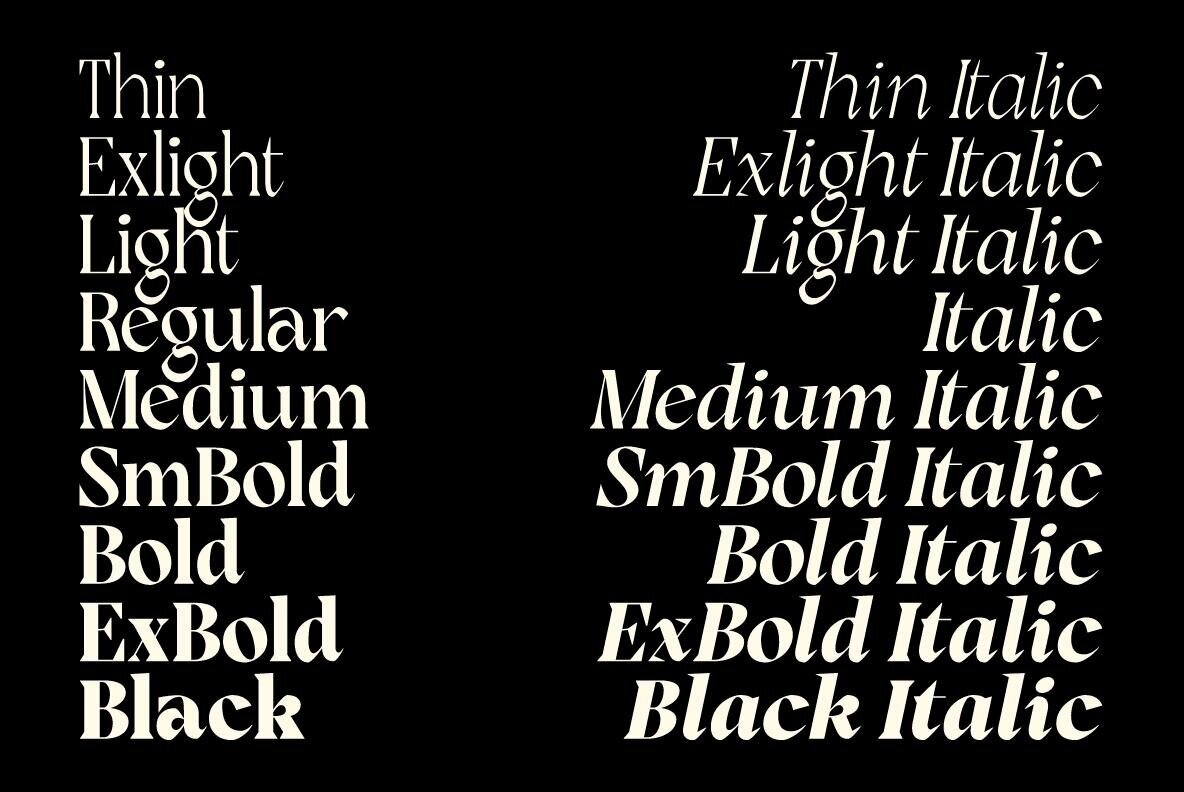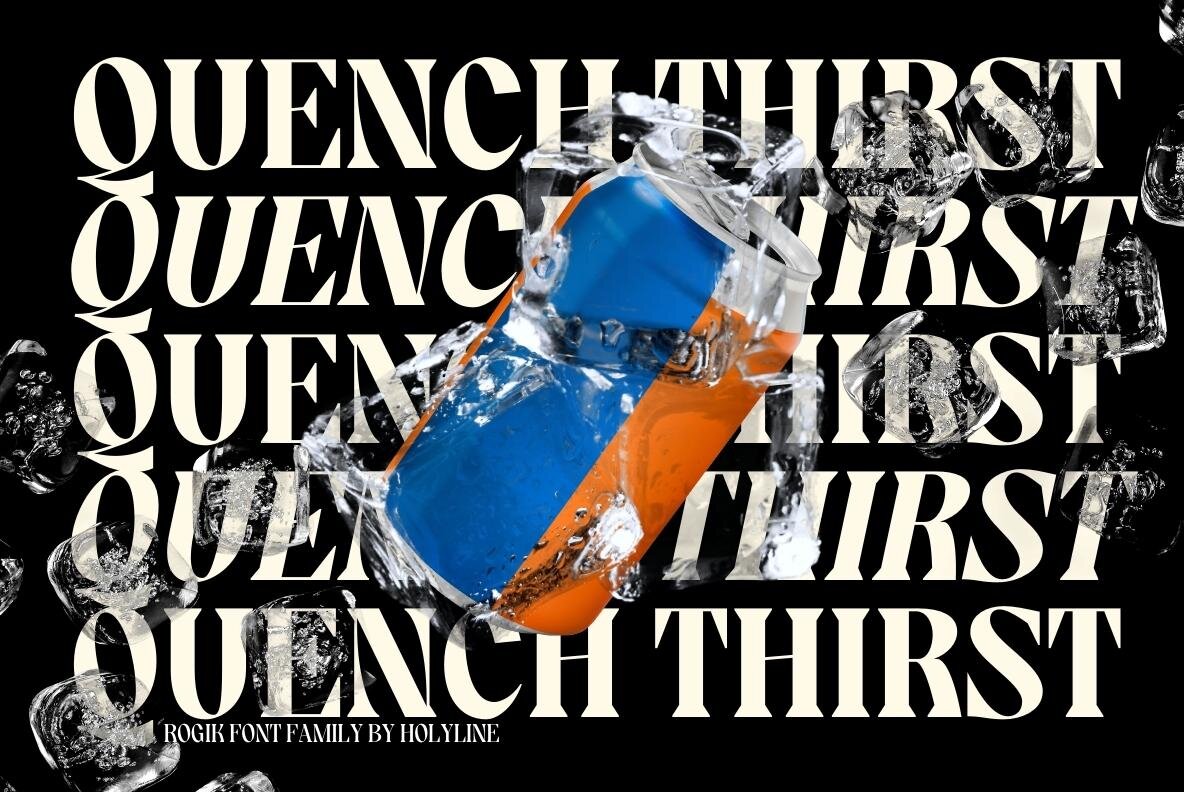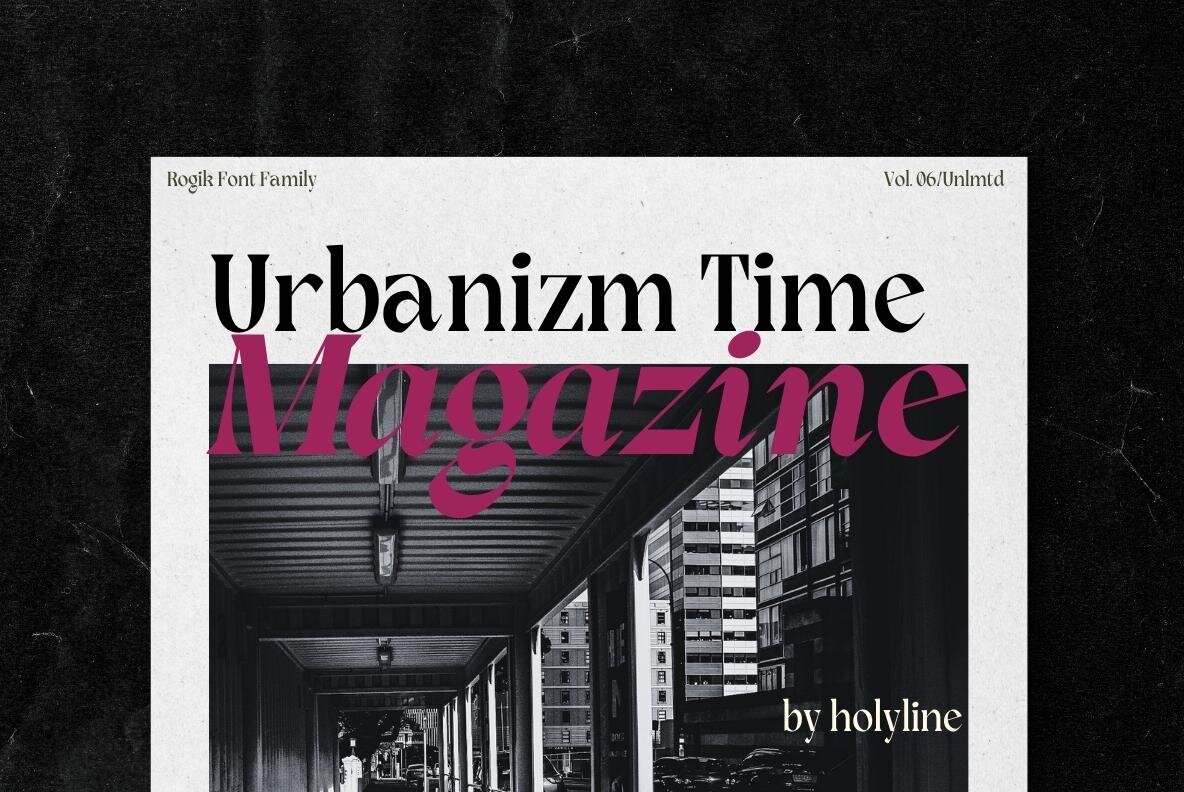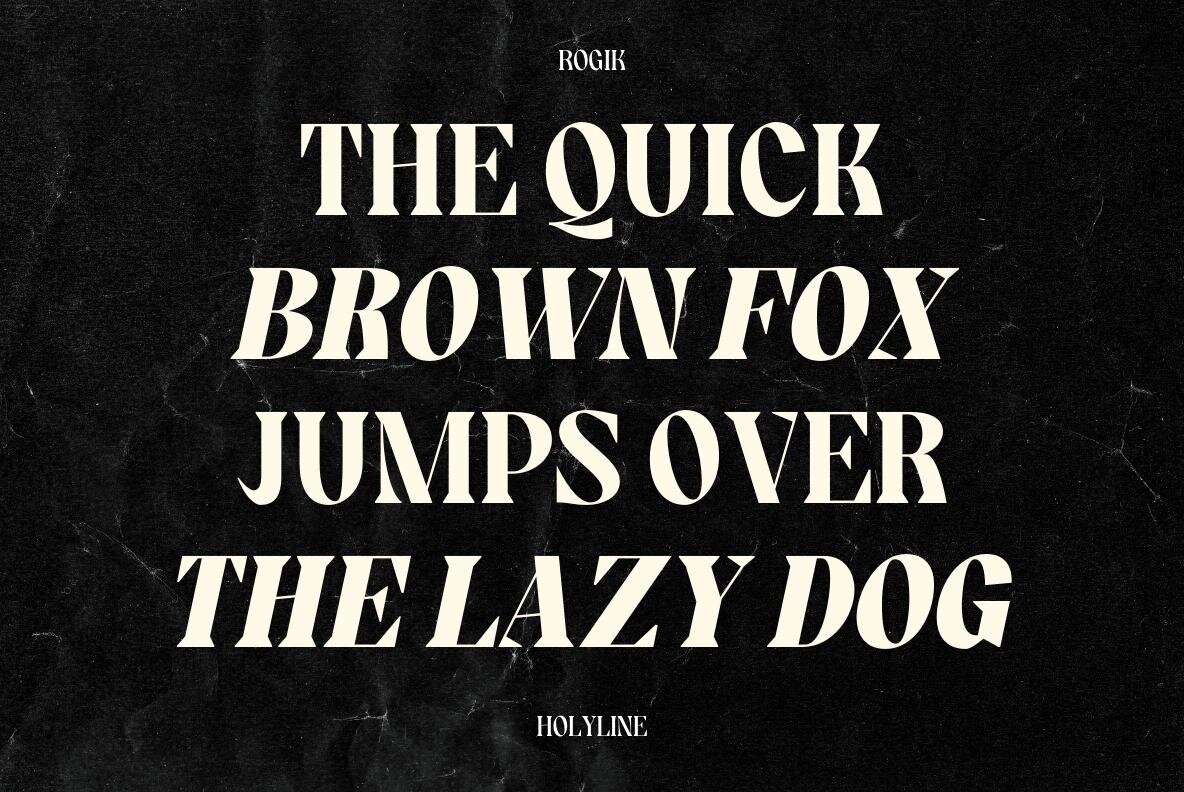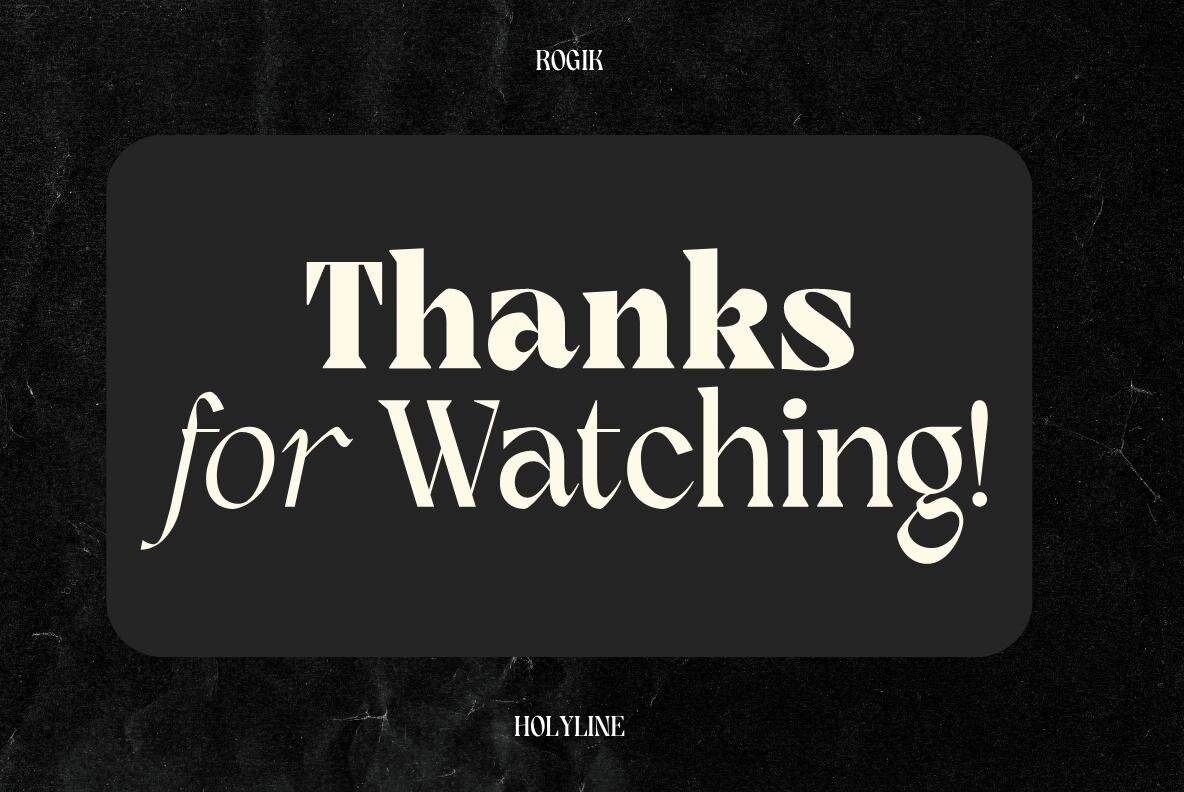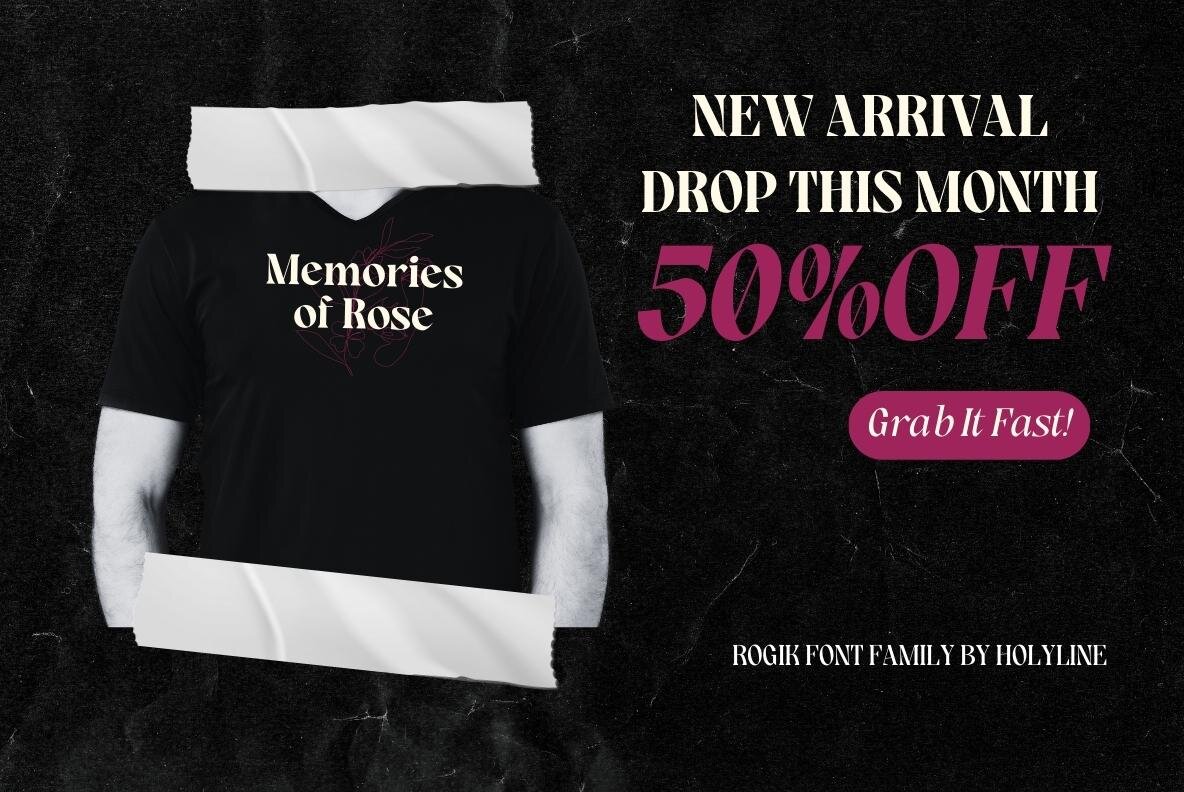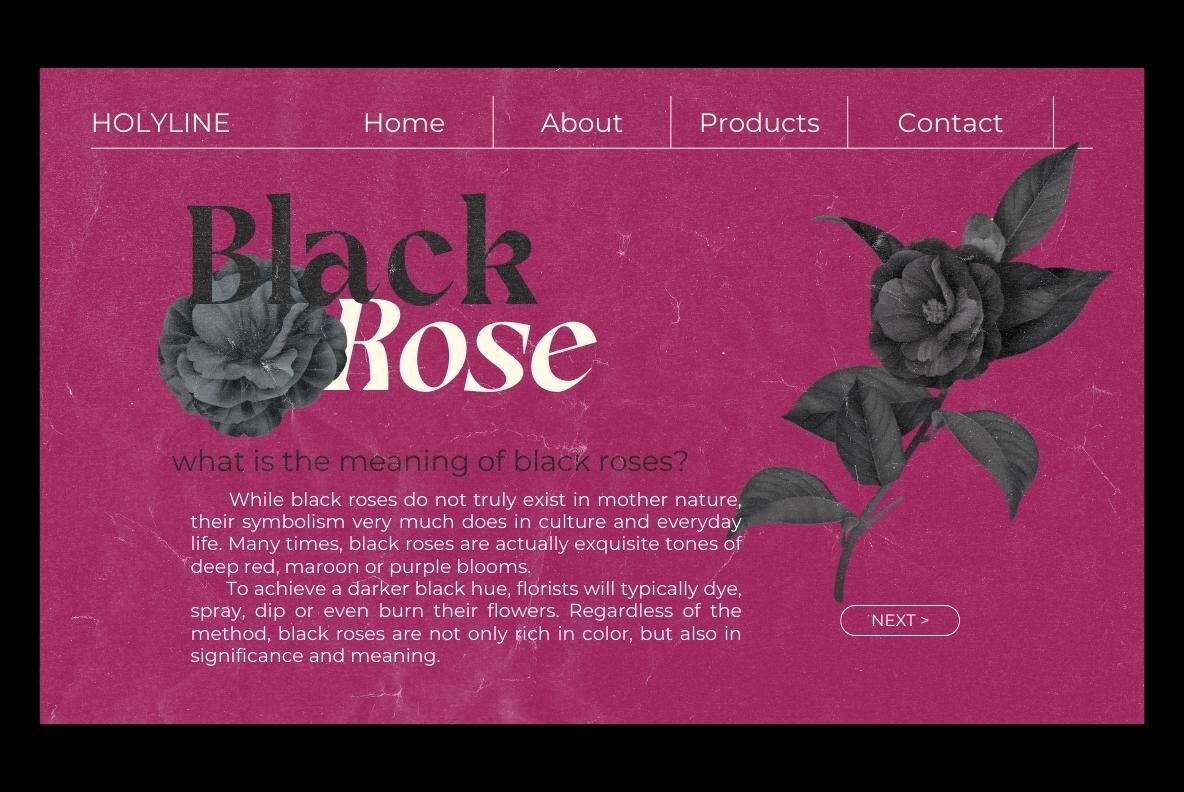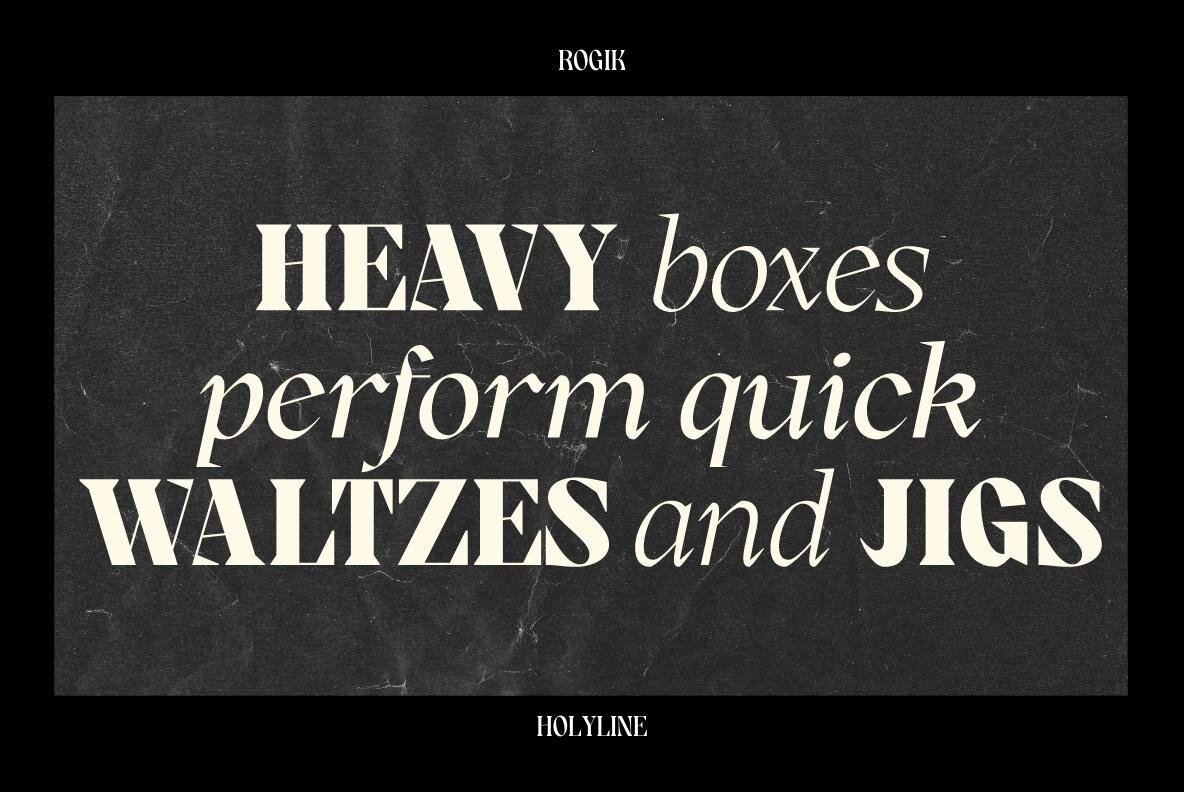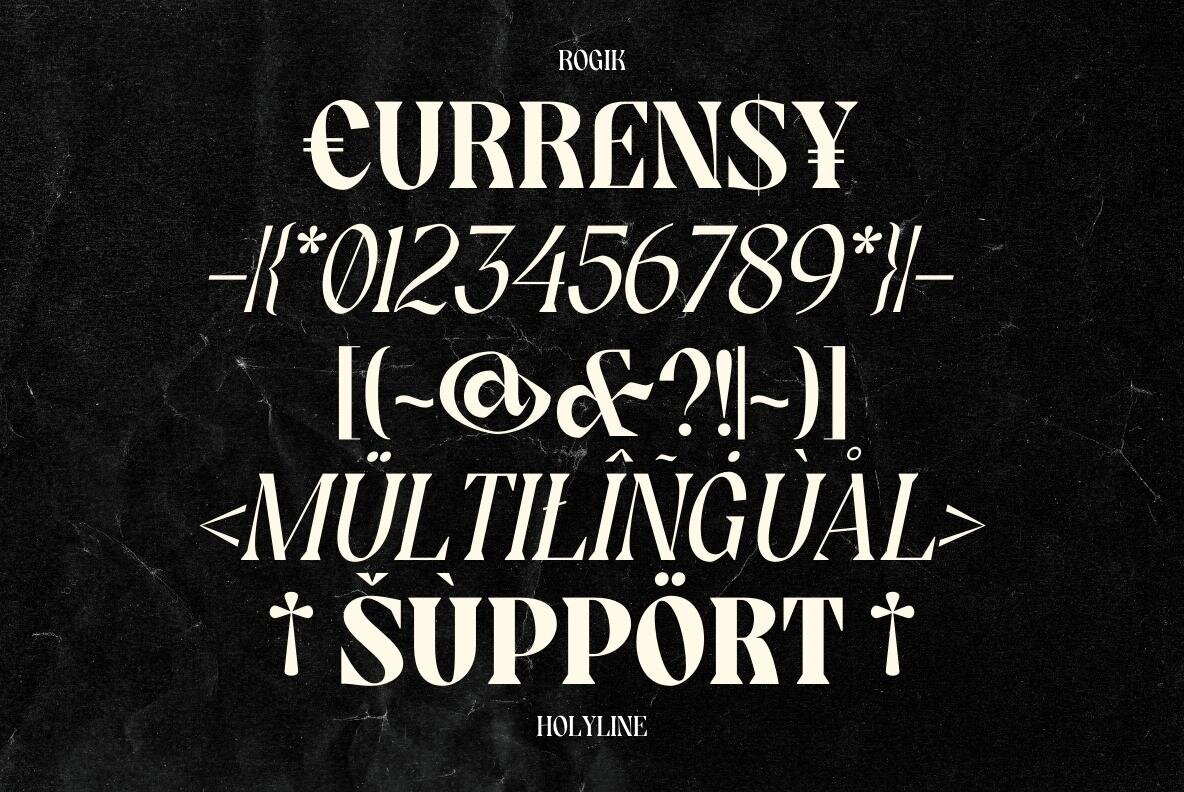
Rogik Font
Rogik by Holyline Design is an expressive serif font family featuring a distinctive blend of elegance and uniqueness with strong, sharp characters. This collection includes nine weights with italic variations, totaling 18 fonts. It also supports variable formats for both upright and italic styles, ensuring versatility in your designs. Inspired by elements of metal, pop, punk, streetwear, and fashion brands, Rogik offers a playful yet sophisticated touch to any project. Rogik is ideal for a wide range of design applications, including headlines, subheadlines, custom logos, packaging, quotes, merchandise, stickers, badges, social media posts, labels, and album covers. It is the perfect choice if you're seeking something new for your projects. With 18 different styles to explore, you can achieve a satisfying design experience by pairing these fonts with various weights. Enjoy the creative possibilities with Rogik.Rogik: Expressive Serif Font Family
Versatile Design Applications